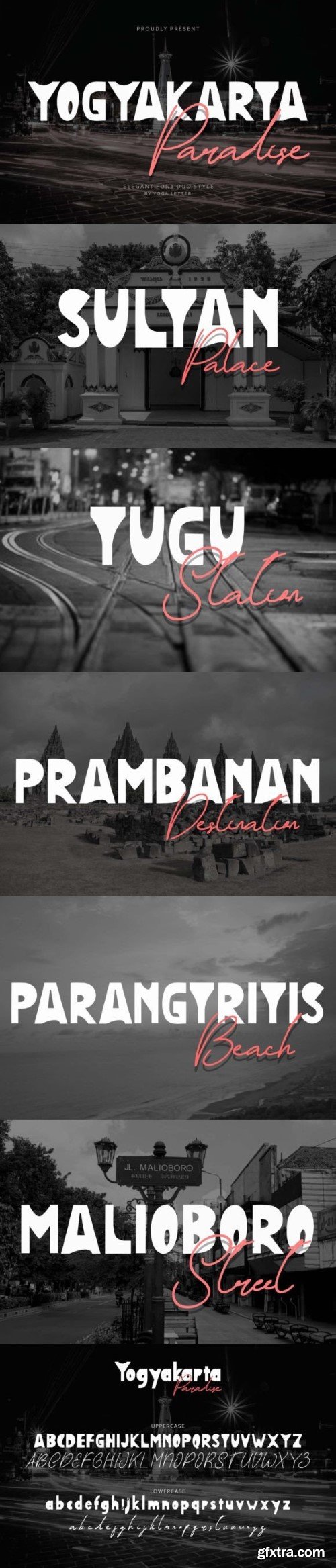
雅加达天堂字体
“Yogyakarta Paradise” is a unique and elegant duo font. This font consists of two different fonts, namely display and signature. Contains uppercase letters, lowercase letters, numerals, punctuation, ligatures, and multilingual support. Very suitable for weddings, logos, banners, parties, summer, spring, business branding, posters, stickers, and others.